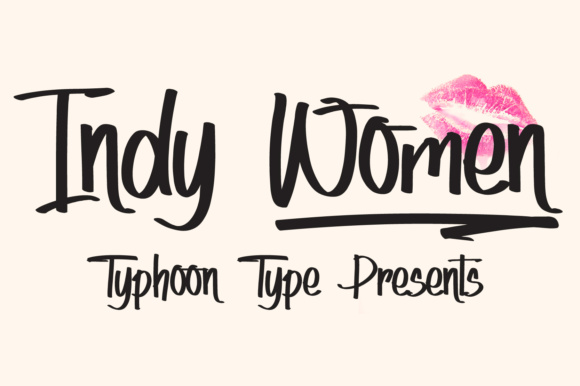
Indy Women Font
About Indy Women Font
Indy Women is a gorgeous hipster font, handwritten to give your designs a casual and relaxed vibe. This font has a great look, and works in hip and alternative designs.